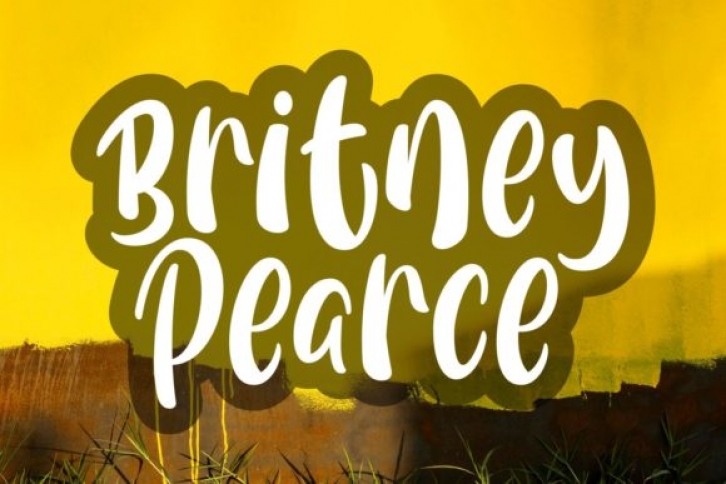
Britney Pearce is a cool, relaxed and brushed handwritten font. It is defined by smooth curves and is perfect for fashion branding or editorial designs. Add it confidently to your projects, and you will love the results.